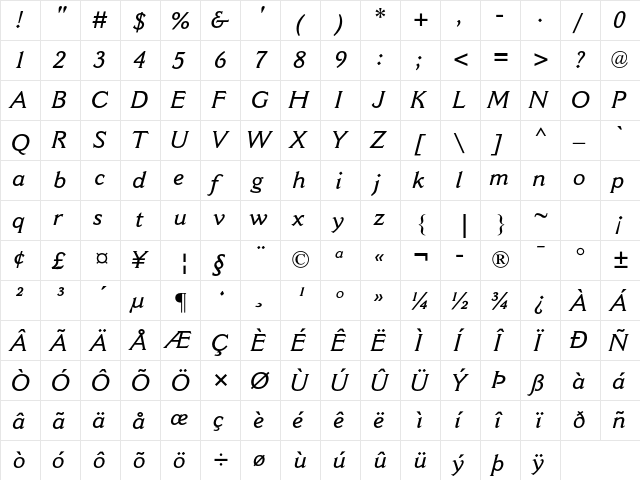
Cantoria MT Std Semibold Italic Font Preview
Cantoria MT Std Semibold Italic
Cantoria MT Std Semibold Italic Font Details
| Designer | Ron Carpenter |
Design Context for Cantoria MT Std Typeface
Cantoria MT Std is a composed and adaptable typeface that performs quietly and consistently across a wide range of design contexts. The dynamic lean of this cut emphasises speed and emphasis in any layout. Its bold stroke weight gives it real presence on the page.
Pro Tip: Use Cantoria MT Std for emphasis, pull quotes, and subheadings where its slanted energy can add rhythm to the layout.